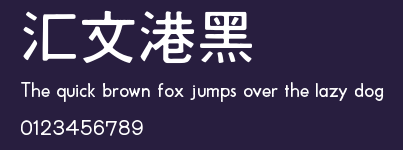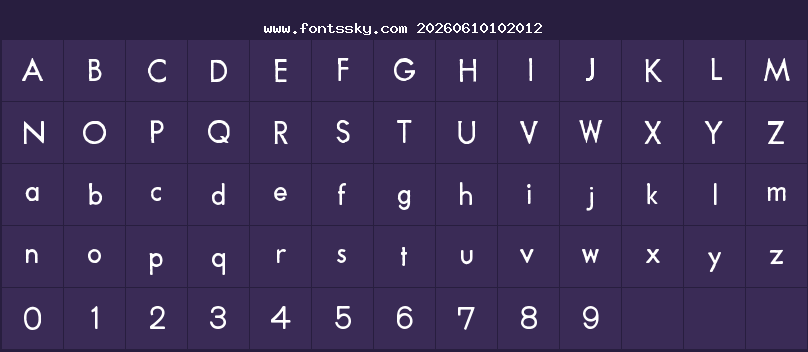
汇文港黑 Preview
• Font Name: 汇文港黑
• Font ID: Huiwen-HKHei Regular:Version 1.001
• Full Font Name: 汇文港黑
• PostScript Name: HuiwenHKHei-Regular
• Character Count: 22516
About 汇文港黑.ttf
汇文港黑.ttf is a modern, elegant sans-serif font designed for ultimate readability and visual harmony. Perfect for branding, headlines, web design, and print materials.